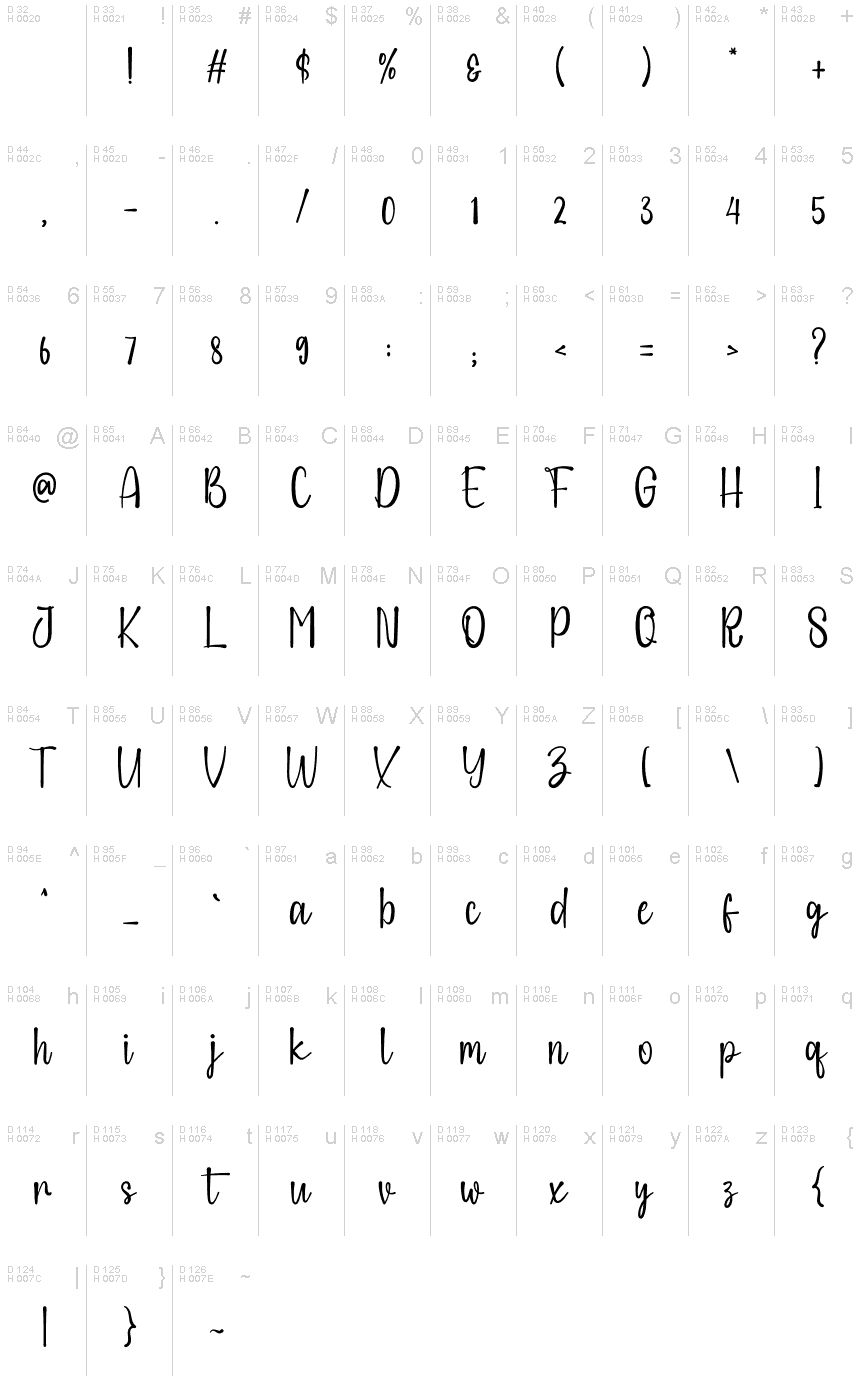
Alliamartha
Introducing Alliamartha - a beautiful handwritten font designed by Inermedia Studio. This light and narrow typeface is perfect for adding a romantic, delicate touch to your designs, making it ideal for wedding invitations, logos and quotes.